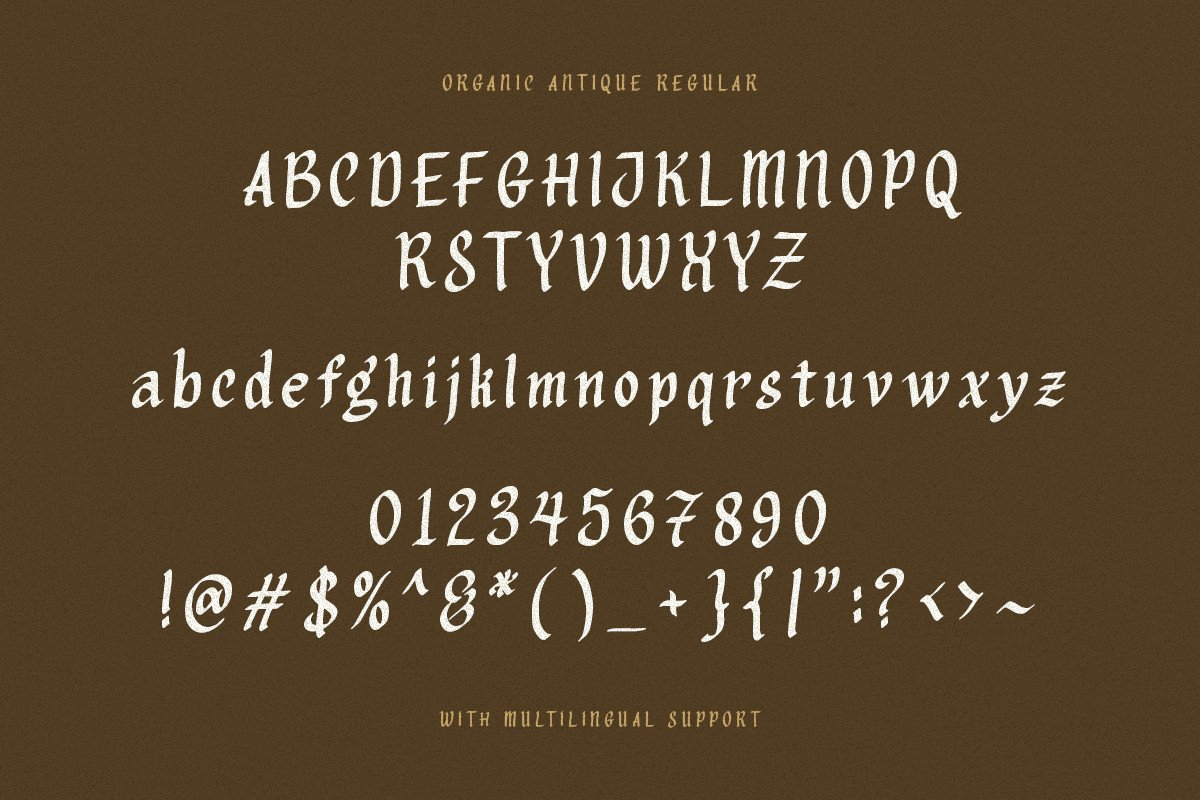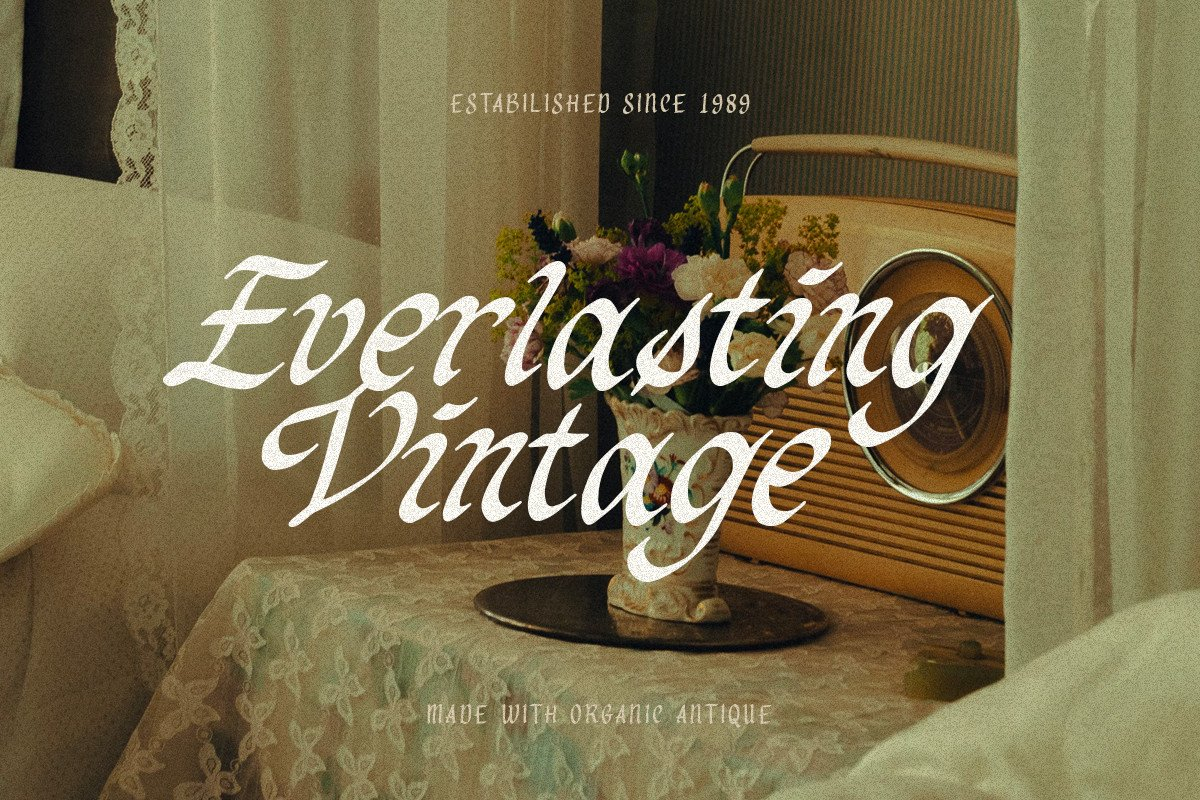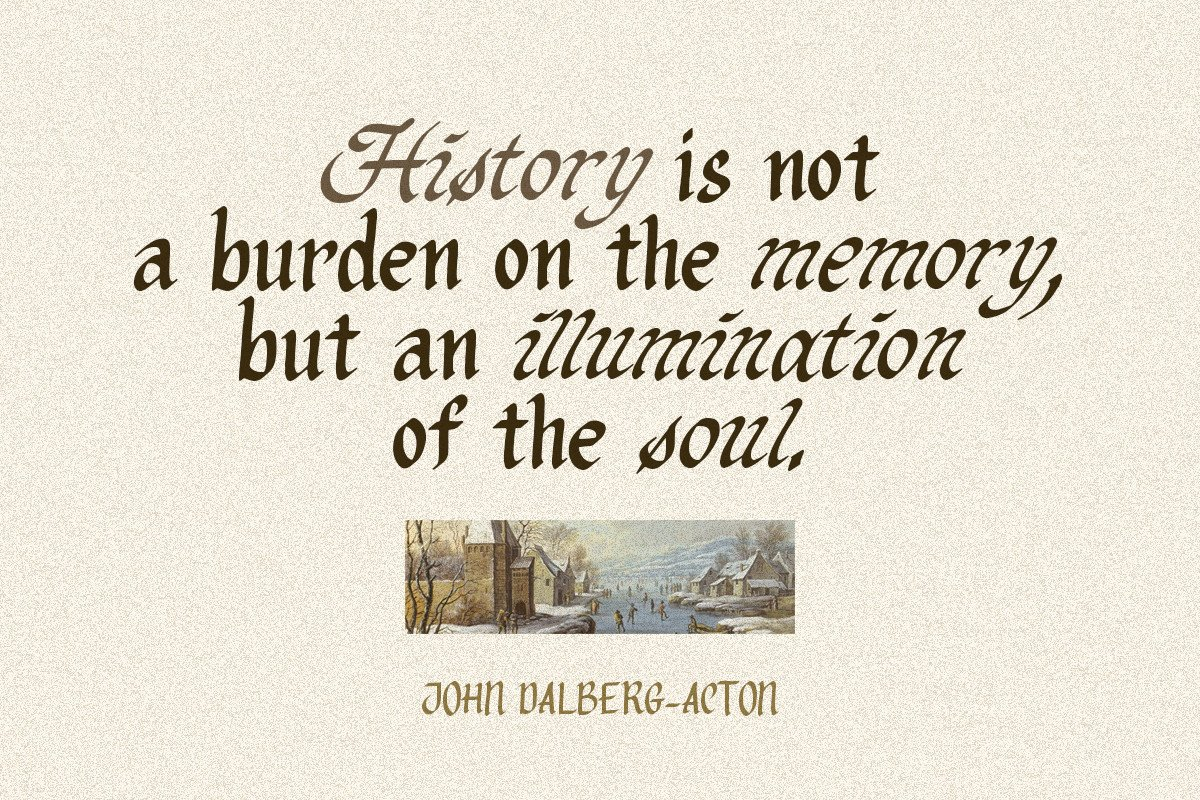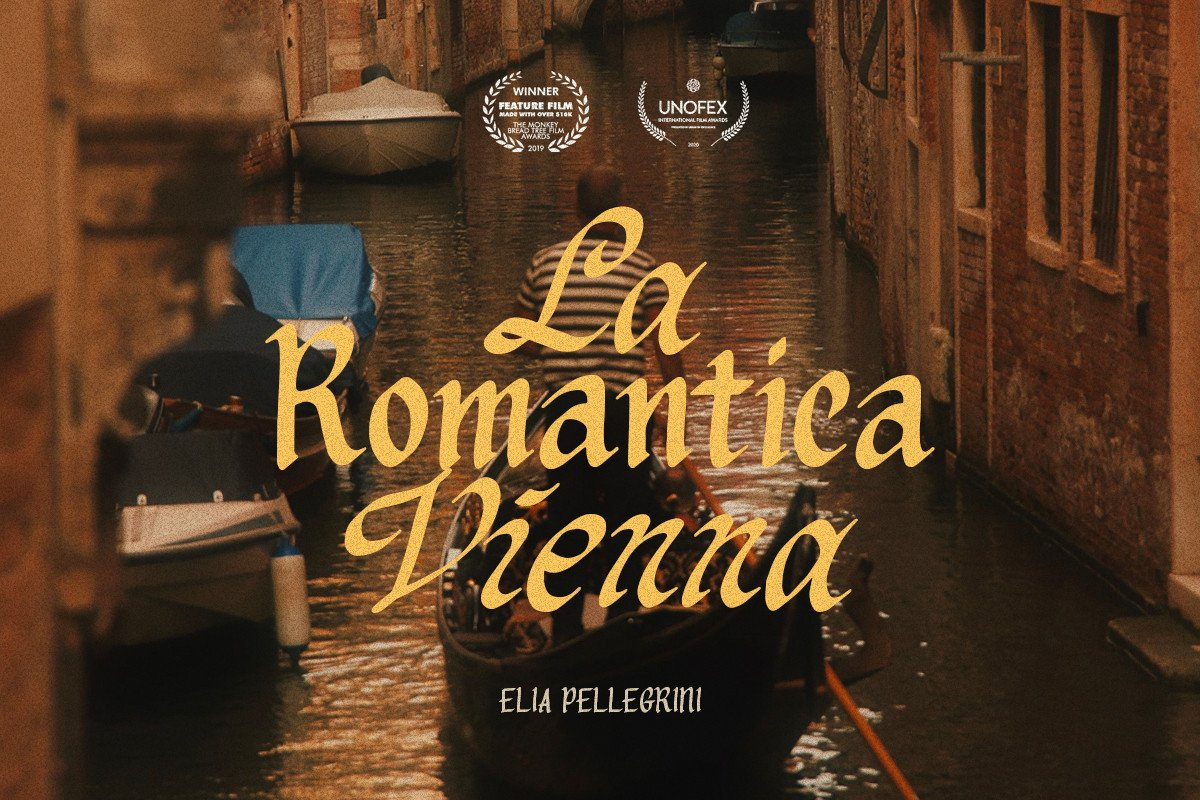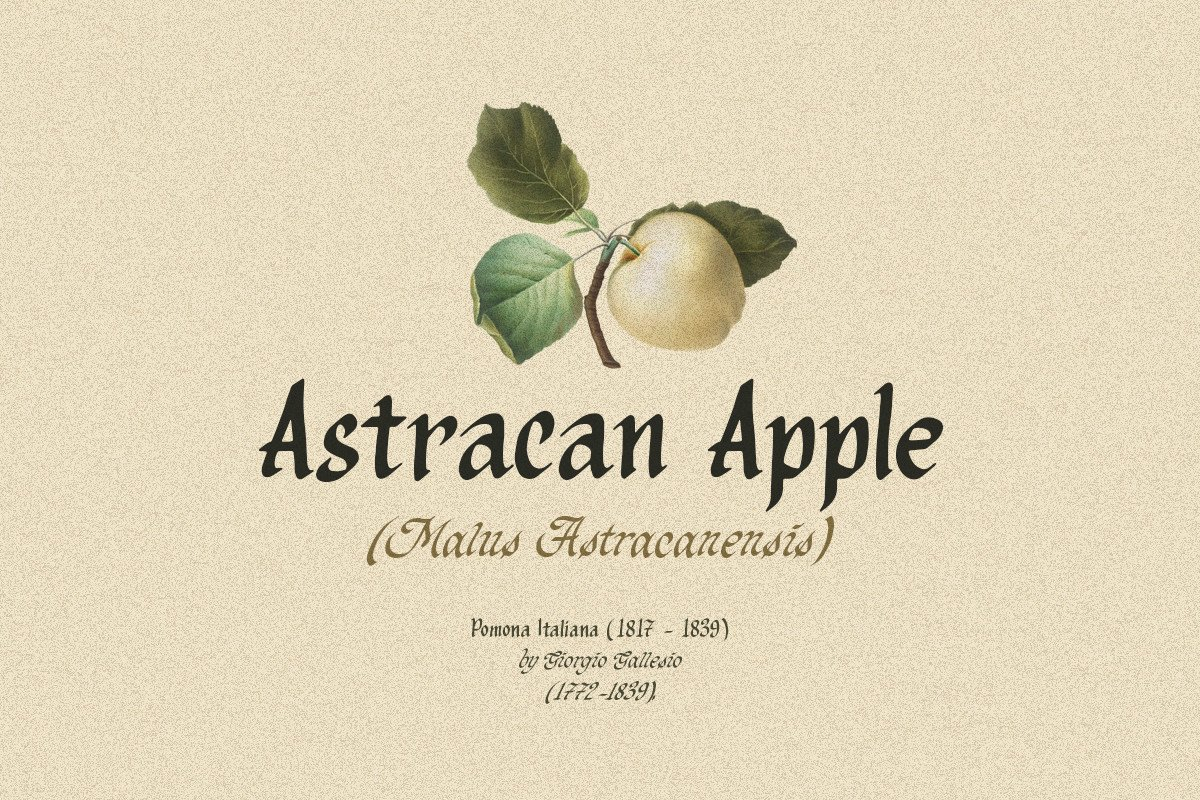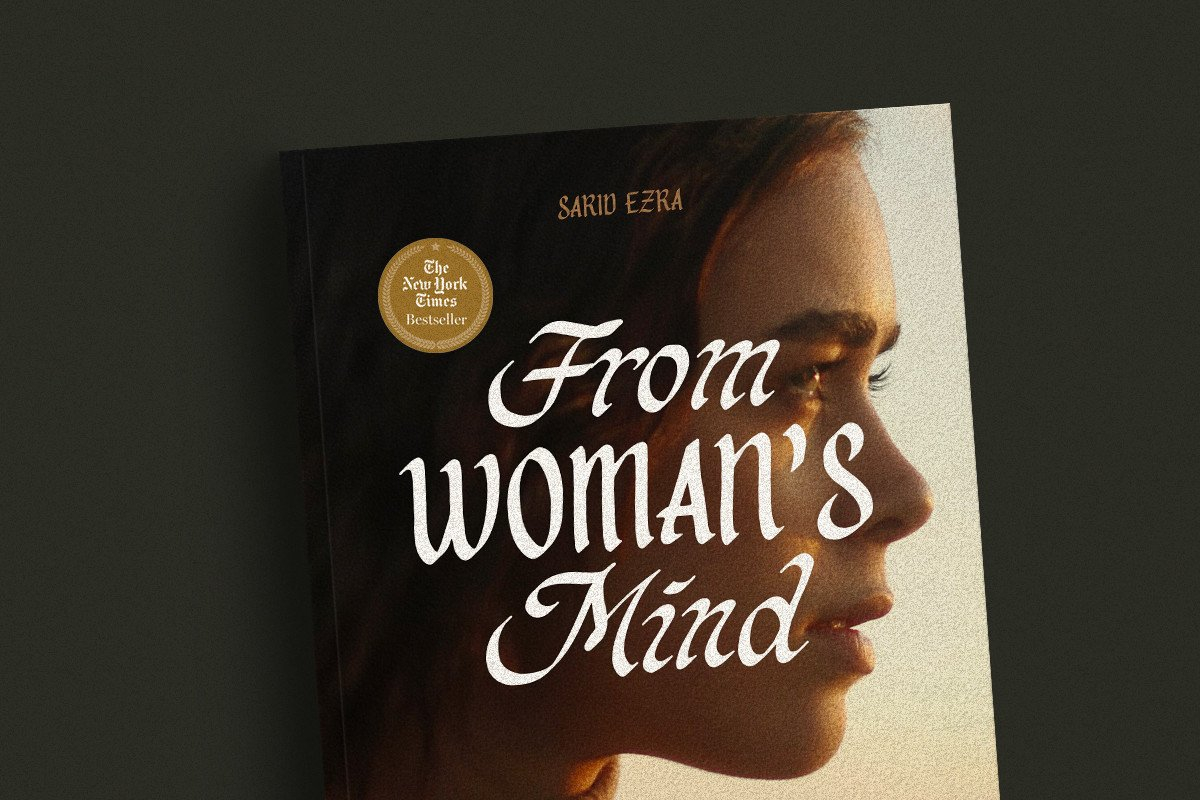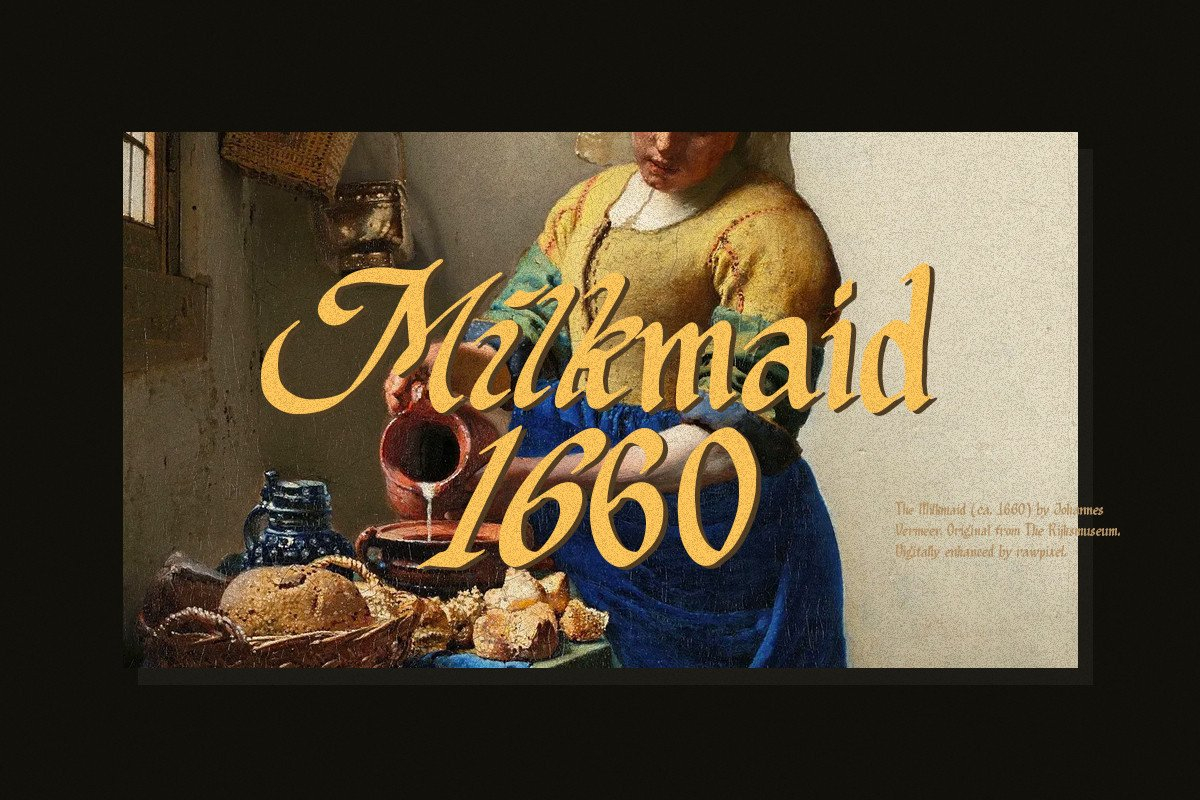
Organic Antique Font
About Organic Antique Font
Organic Antique is a blackletter font with organic and handmade feels.  With classic and vintage vibes, you can use this font for logotypes, quotes, branding, or even movie poster. The hand-lettered and rough font will also make your designs more stunning and earthy.